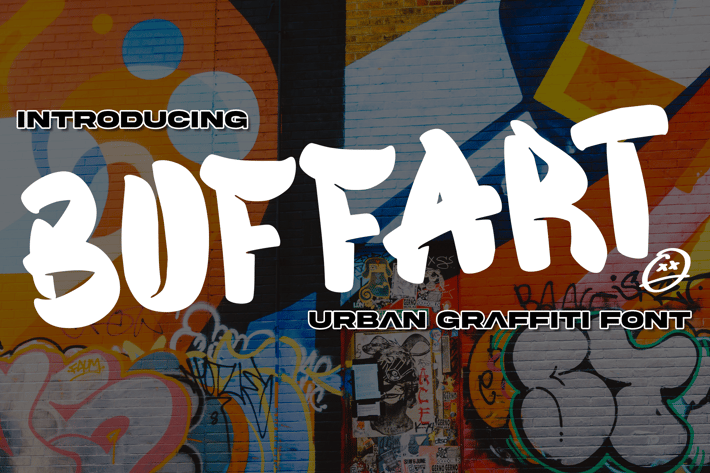
Buffart - Urban Graffiti Font
Want your message to hit the streets loud and clear? Look no further.
Introducing Buffart - An Urban Graffiti Font.
Buffart isn't shy. It's raw, it's real, and it demands attention. From logos and apparel to social media and street art projects, Buffart leaves a lasting impression. Tag your creations with an authentic voice. Showcase the urban energy within!